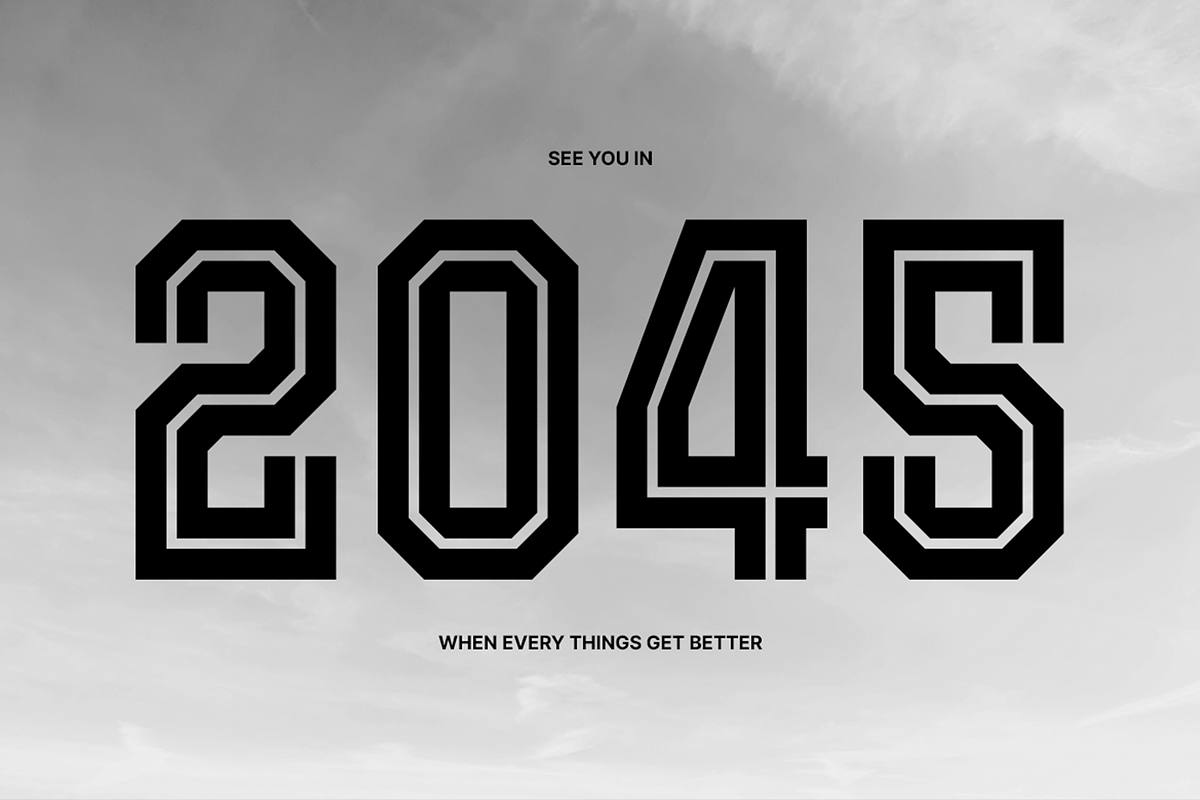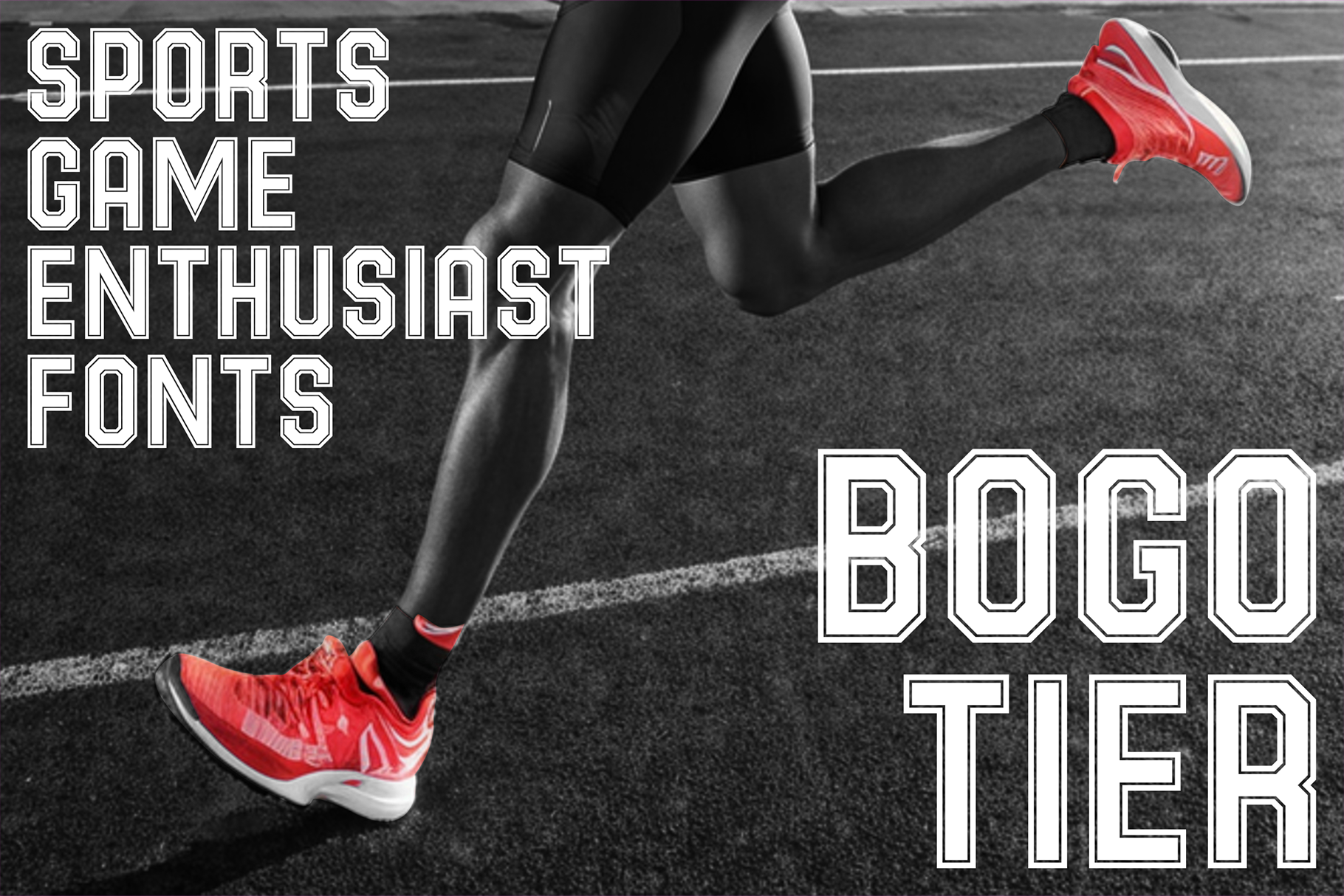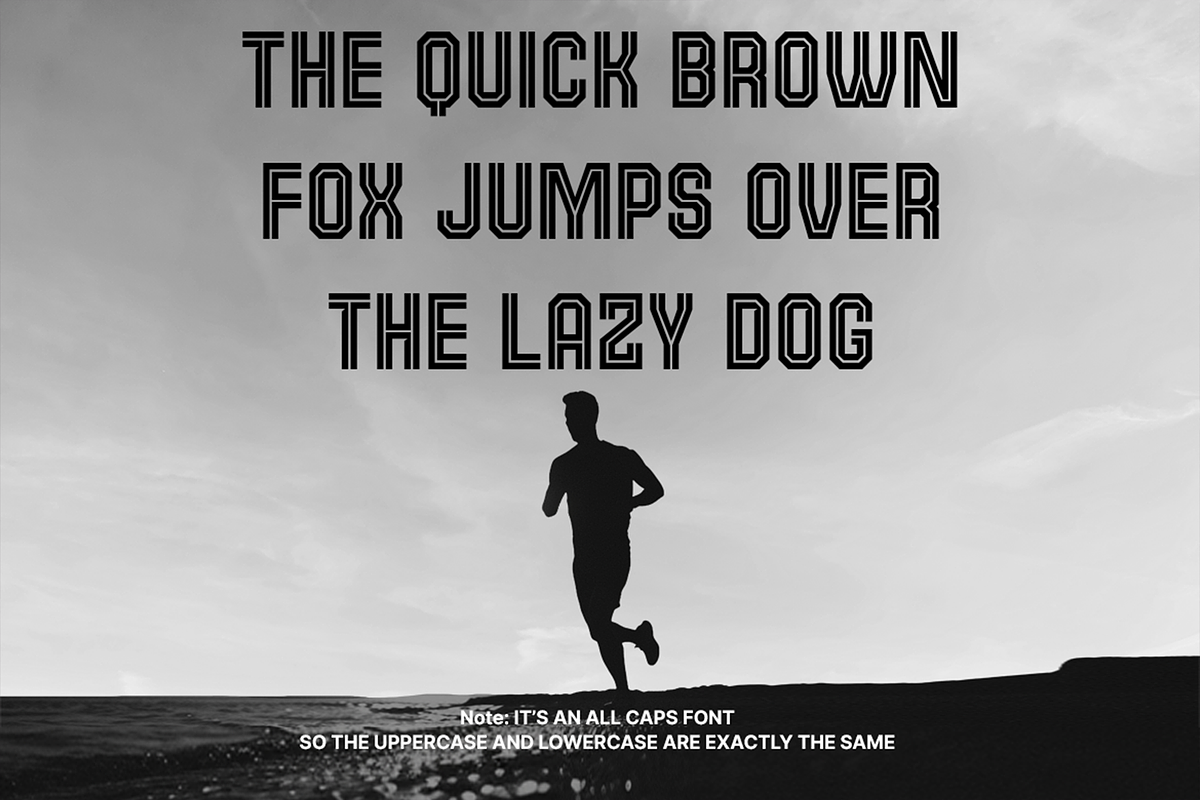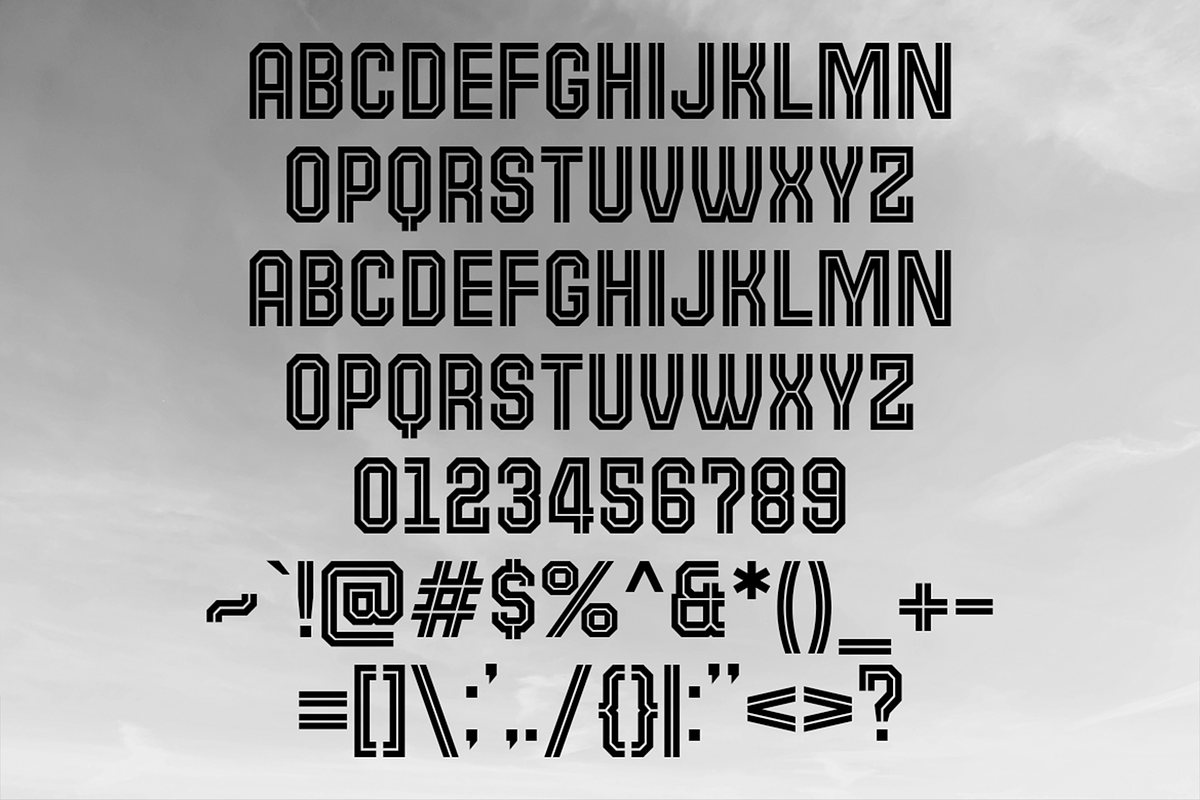
Bogotier - Sports Athletic Fonts
Introducing Bogotier – The Ultimate Sport Font for Game Enthusiasts!
Inspired by the dynamic visuals of today’s sports world, Bogotier is designed for champions. Whether it’s the bold numbers on a jersey, the fierce branding of a championship, or the high-energy visuals of esports events, Bogotier brings that competitive edge to your designs.
Featuring sleek, jersey-inspired characters with bold lines running through them, Bogotier captures the essence of athleticism and performance. Its unique style reflects speed, strength, and the thrill of the game, making it perfect for:
- Jersey designs
- Sports event branding
- Esports visuals
- Athletic and lifestyle apparel
With its powerful, sporty look, Bogotier delivers the perfect blend of modern game aesthetics and high-performance design.
Take your designs to the next level with Bogotier – Where Passion Meets Performance!